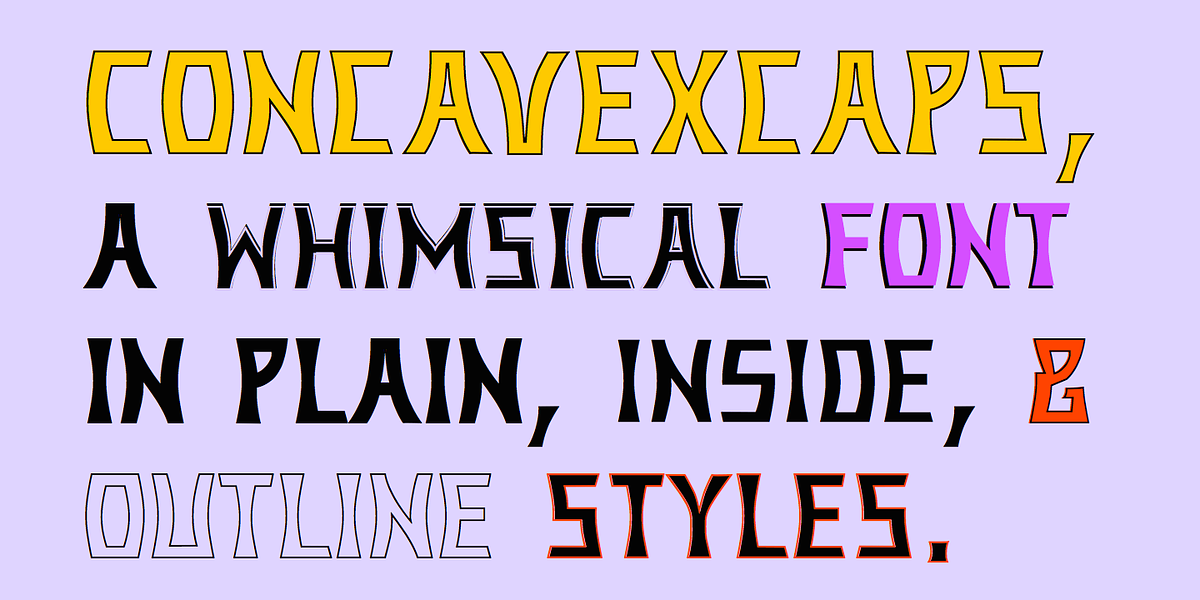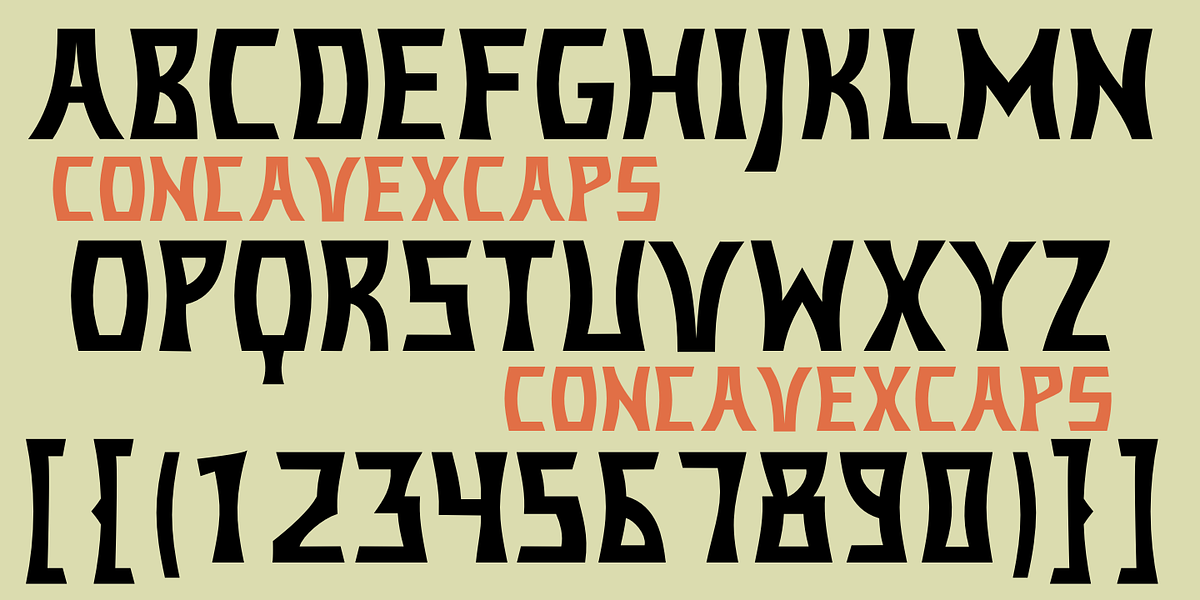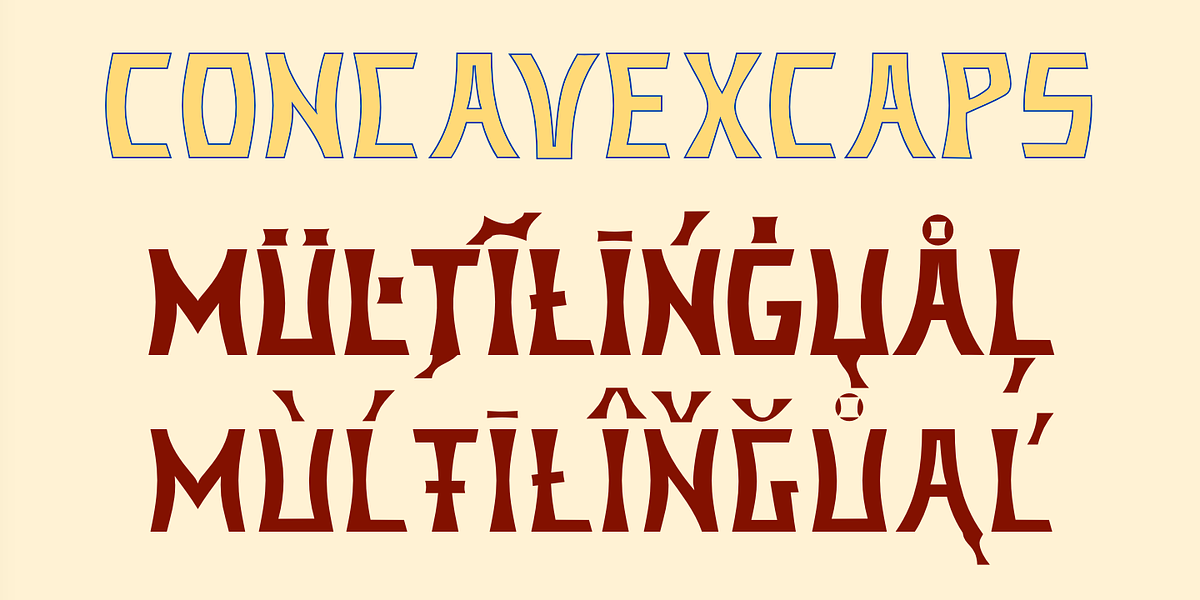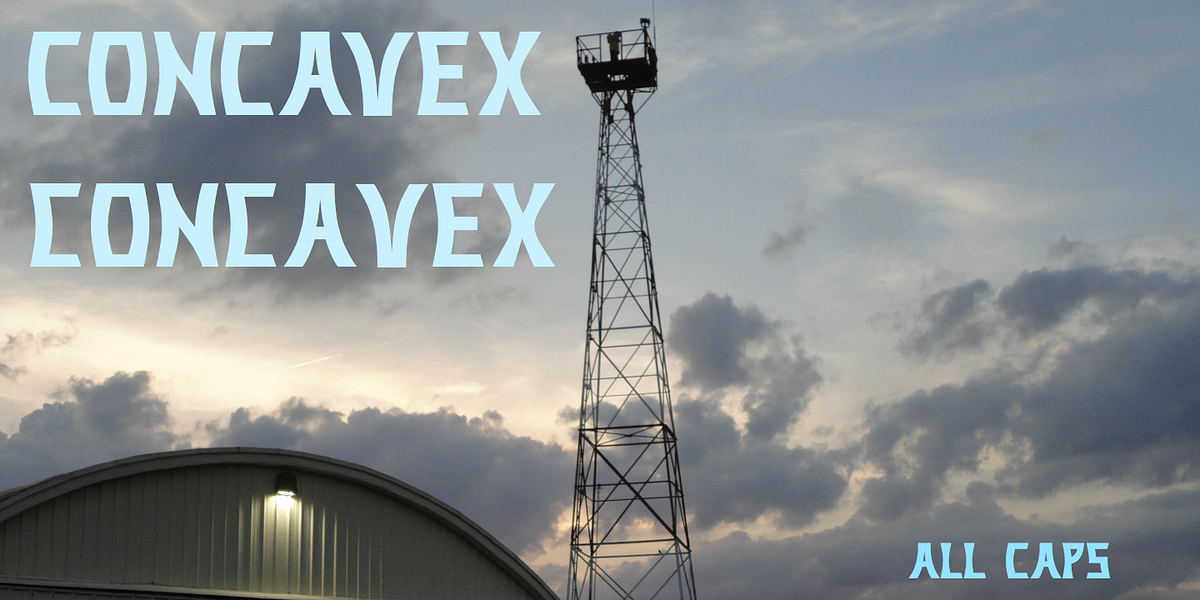
Concavex
ConcavexCaps is a bold display typeface designed for layering. It is caps-only, with distinct glyphs for uppercase and lowercase letters in BCGKRS characters. The font features straight horizontal elements and curved vertical elements that either flare inwards or outwards.